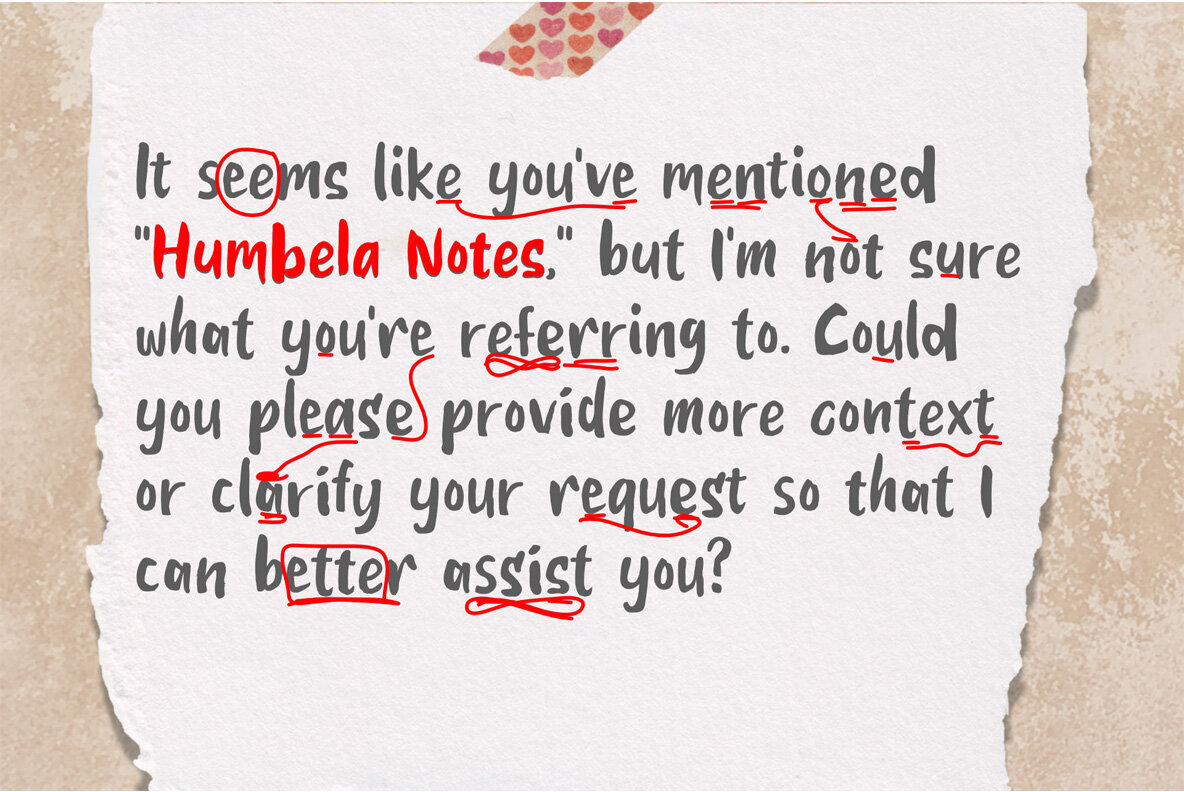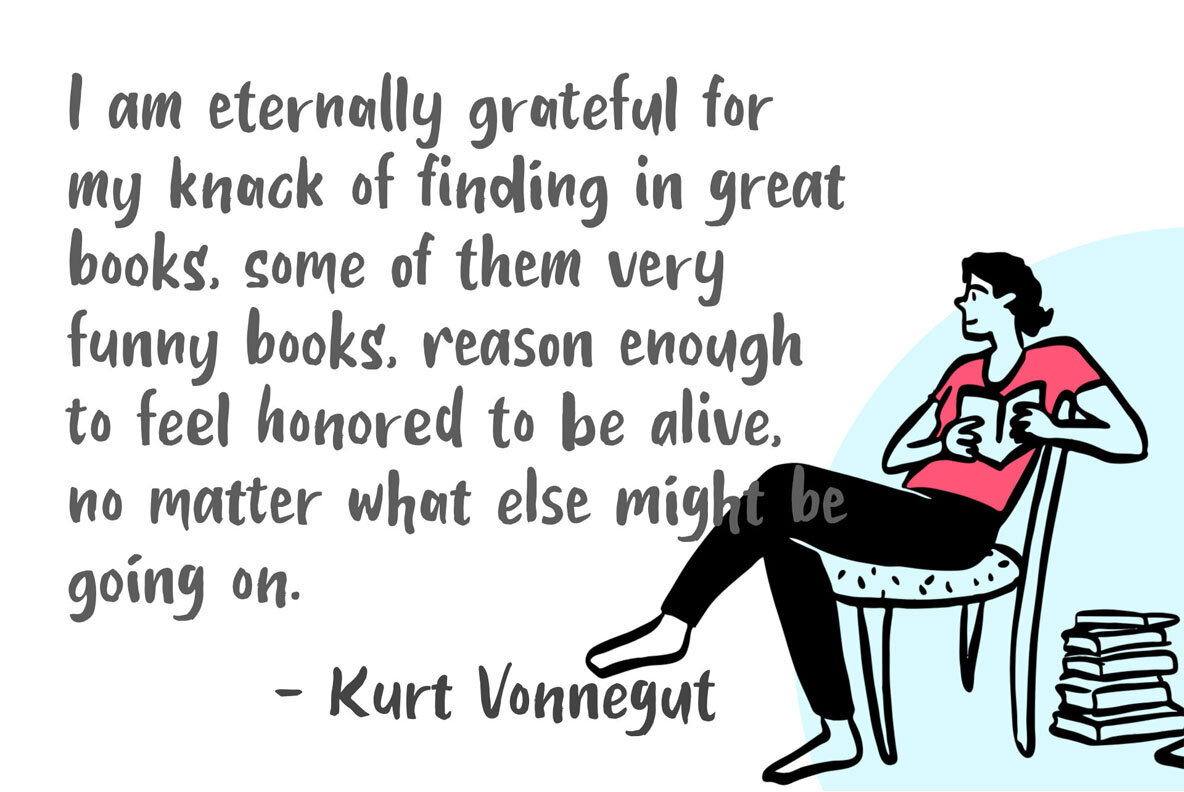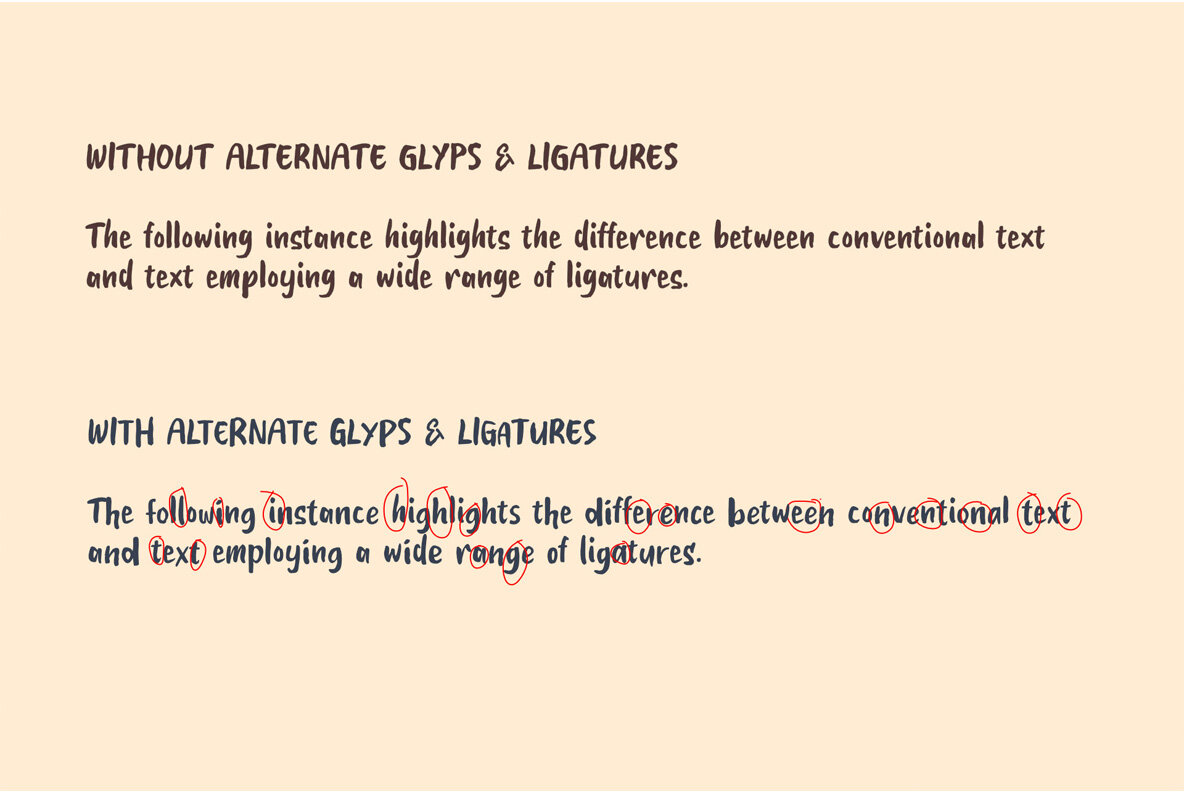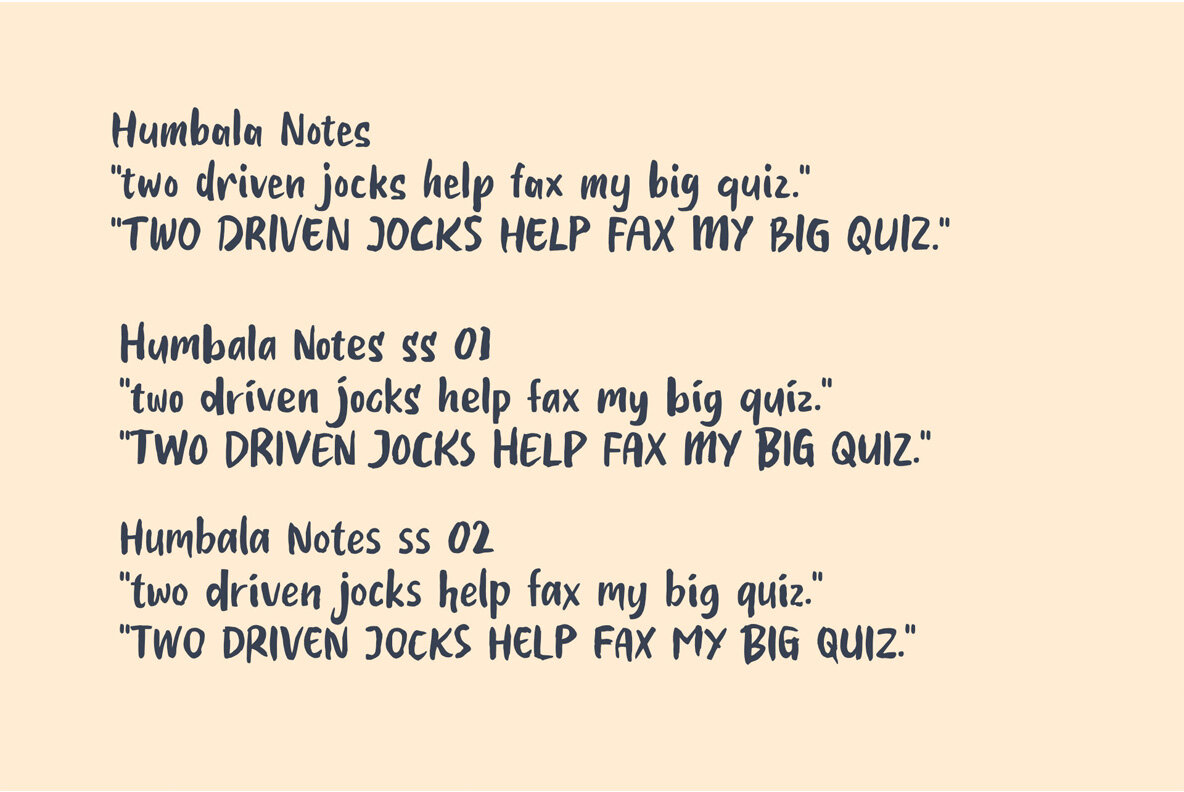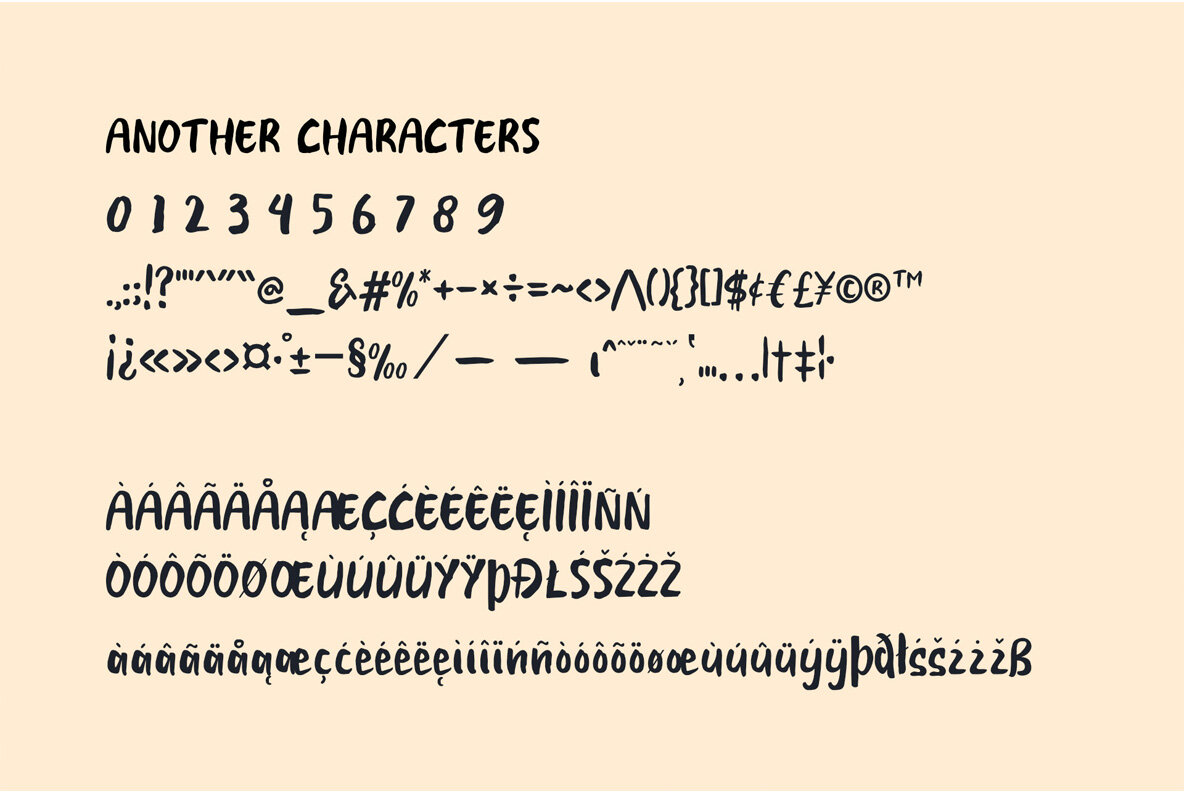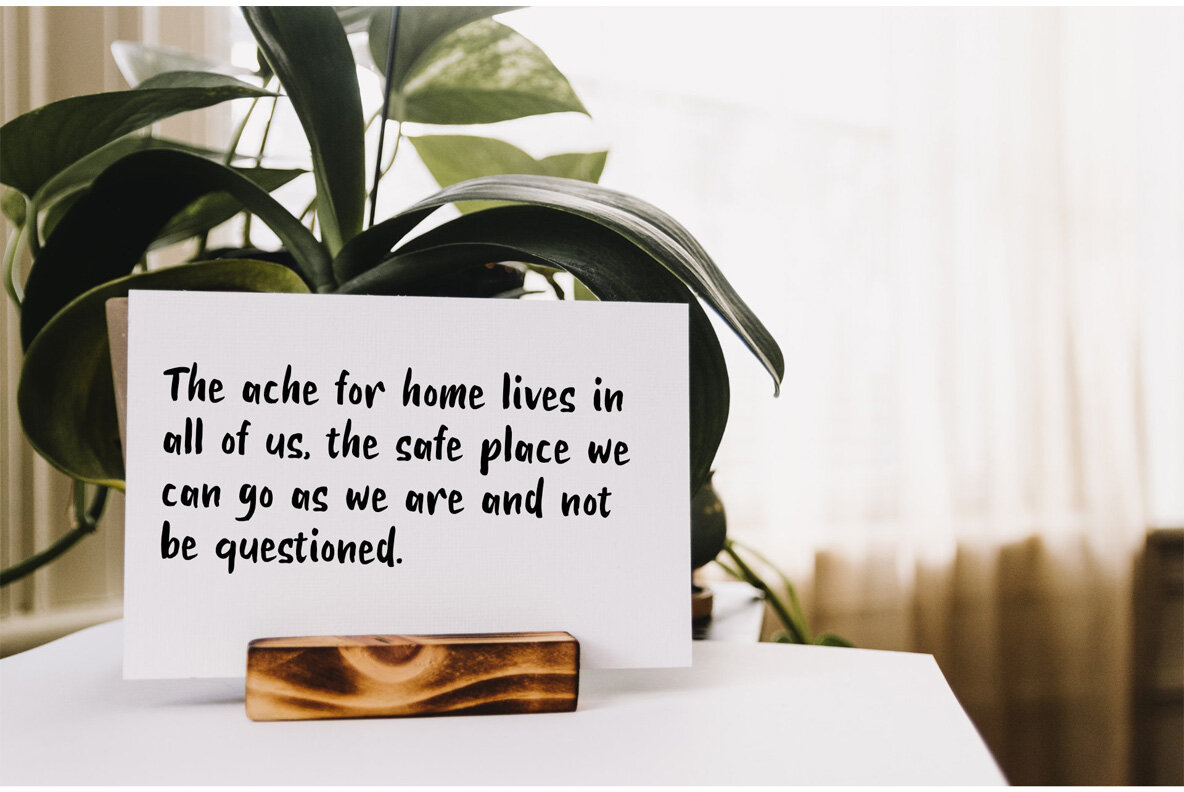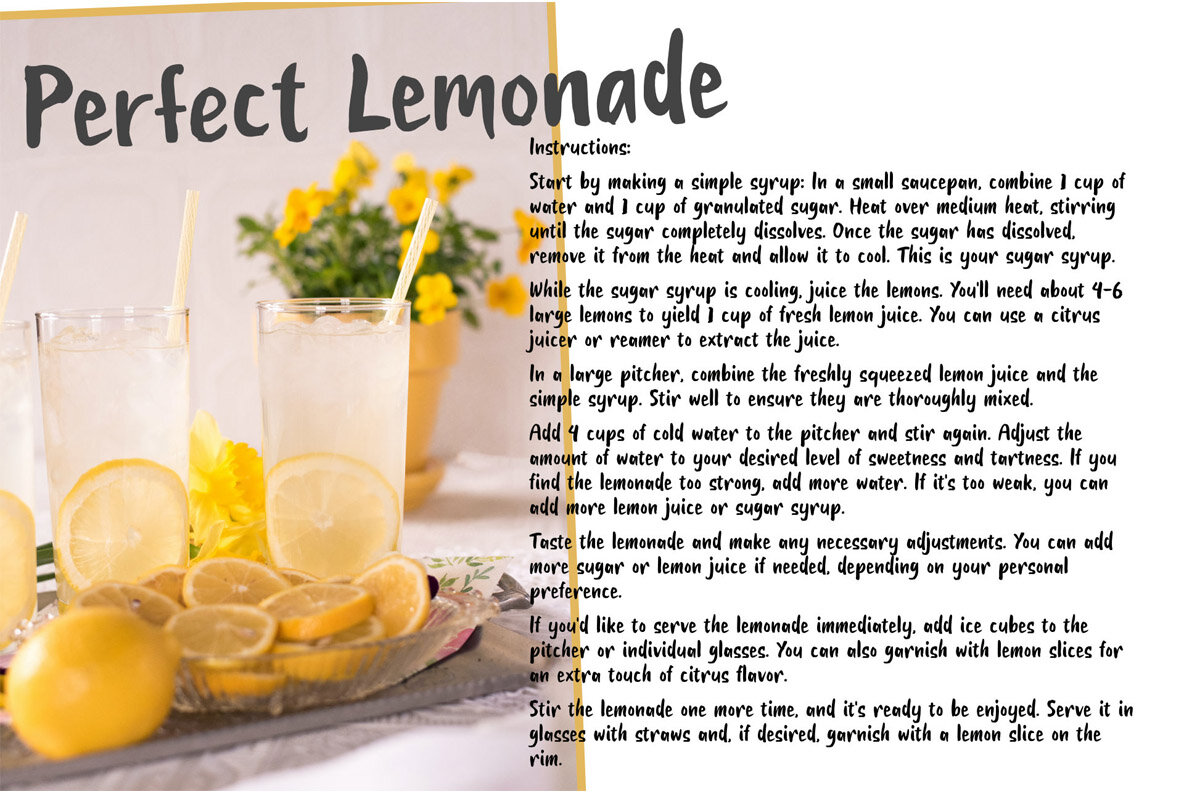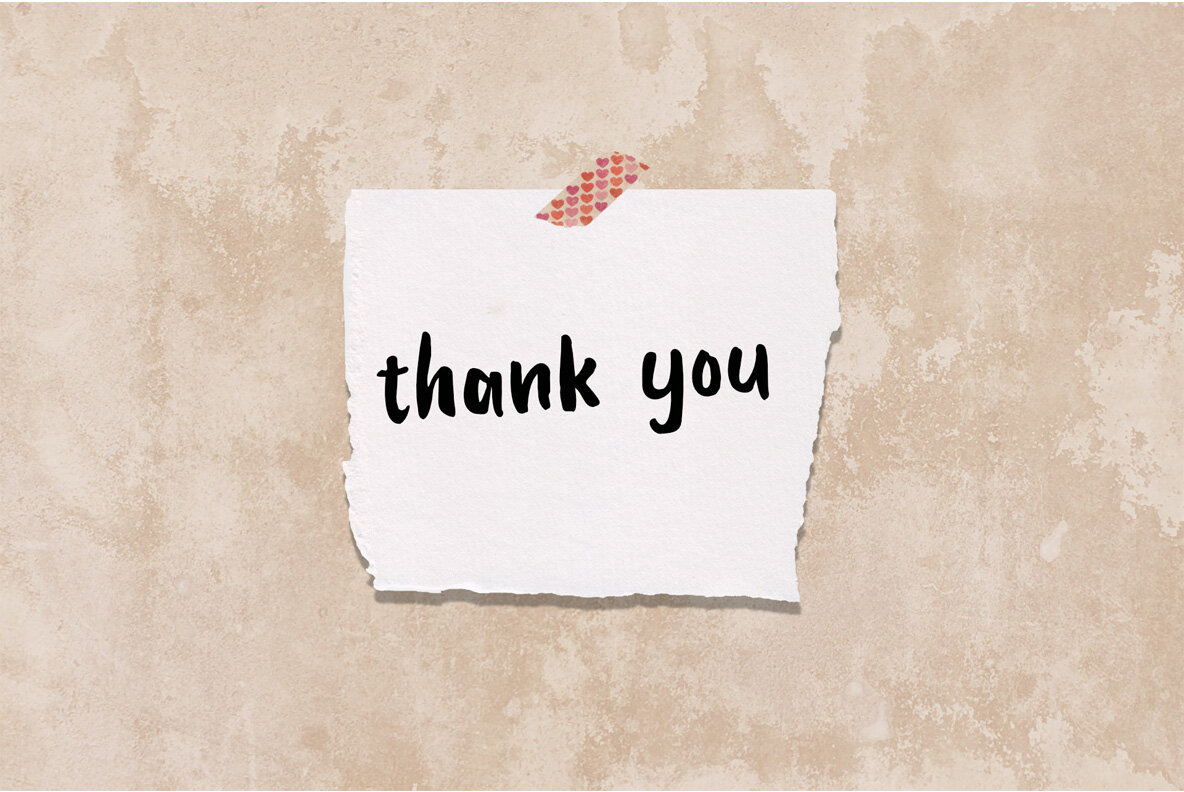
Humbela Notes Font
Humbela Notes
Humbela Notes is a unique font offering three distinct alternatives for every letter, adding an element of delightful randomness to every sentence you compose. This feature meticulously replicates the nuanced, natural variations found in handwritten text, imparting an authentic and organic quality to your written communication. Whether you're designing invitations, greeting cards, or social media graphics, this font will elevate your work with its charming and whimsical character. Unlock the possibilities of authentic hand-drawn typography and let your creativity shine with our one-of-a-kind font. The font is all capital letter characters, numerals, multilingual support, and a large range of punctuation.